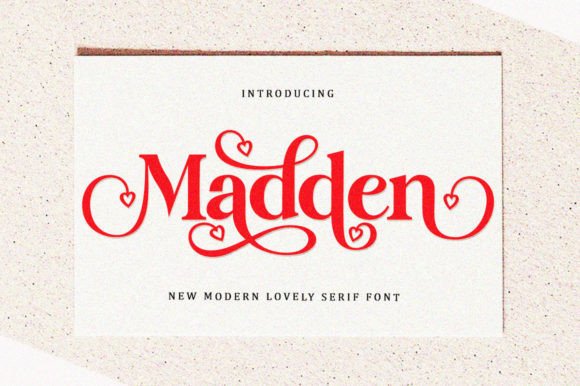
Introducing Madden Font, the epitome of sophistication and playfulness rolled into one captivating typeface. Designed by Mastertype, Madden is a versatile serif font that effortlessly dances between elegance and charm, making it an absolute treat for any design enthusiast.
Picture this: A font that exudes grace and luxury, yet carries a touch of whimsy and fun, capturing the hearts of all who lay their eyes upon it. Madden's unique character lies in its striking serif style, which intertwines the best of both worlds – a luxurious love style and a friendly, playful boldness. The result is a font that oozes class, elegance, and a touch of edginess, setting your designs apart from the mundane.
Madden is a font that embraces versatility with open arms. Its boundless potential knows no limits, effortlessly adapting to a multitude of projects, from the modern and contemporary to the charmingly retro and vintage. Whether you're crafting logos, branding masterpieces, or adding a touch of flair to your wedding invitations, Madden will elevate your creations to new heights of beauty and sophistication.
But that's not all, folks! Madden boasts an impressive array of glyphs, providing you with endless options to unleash your creativity. These intricate details add depth and dimension to your designs, making every project a true work of art.
Designers, rejoice! Madden is a font that will ignite your passion and fuel your creativity. Its ability to seamlessly blend elegance and playfulness makes it the perfect choice for a wide range of projects, including logos, branding, magazines, signage, fashion, and countless more.
Step into the realm of design excellence with Madden Font. Let your creativity soar as you craft masterpieces that radiate sophistication, charm, and a hint of playful delight. Experience the magic of Madden today and transform your designs into works of art that will leave an everlasting impact.